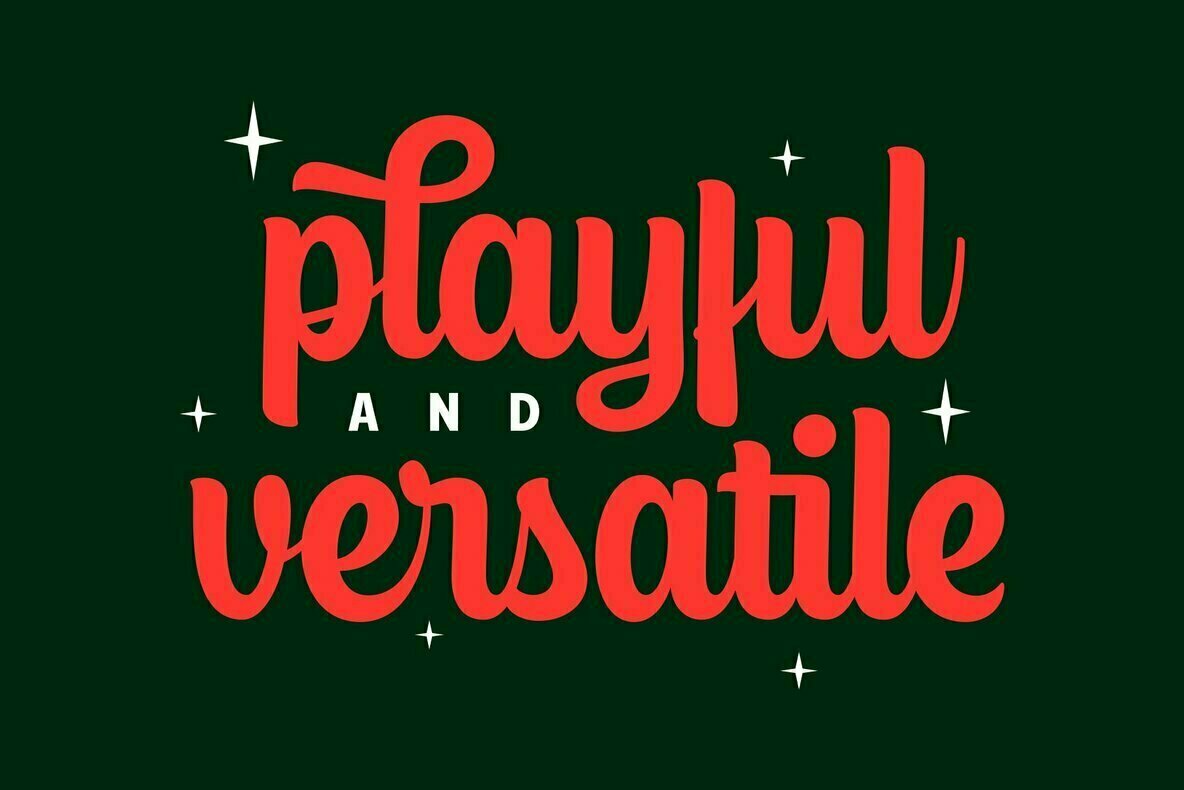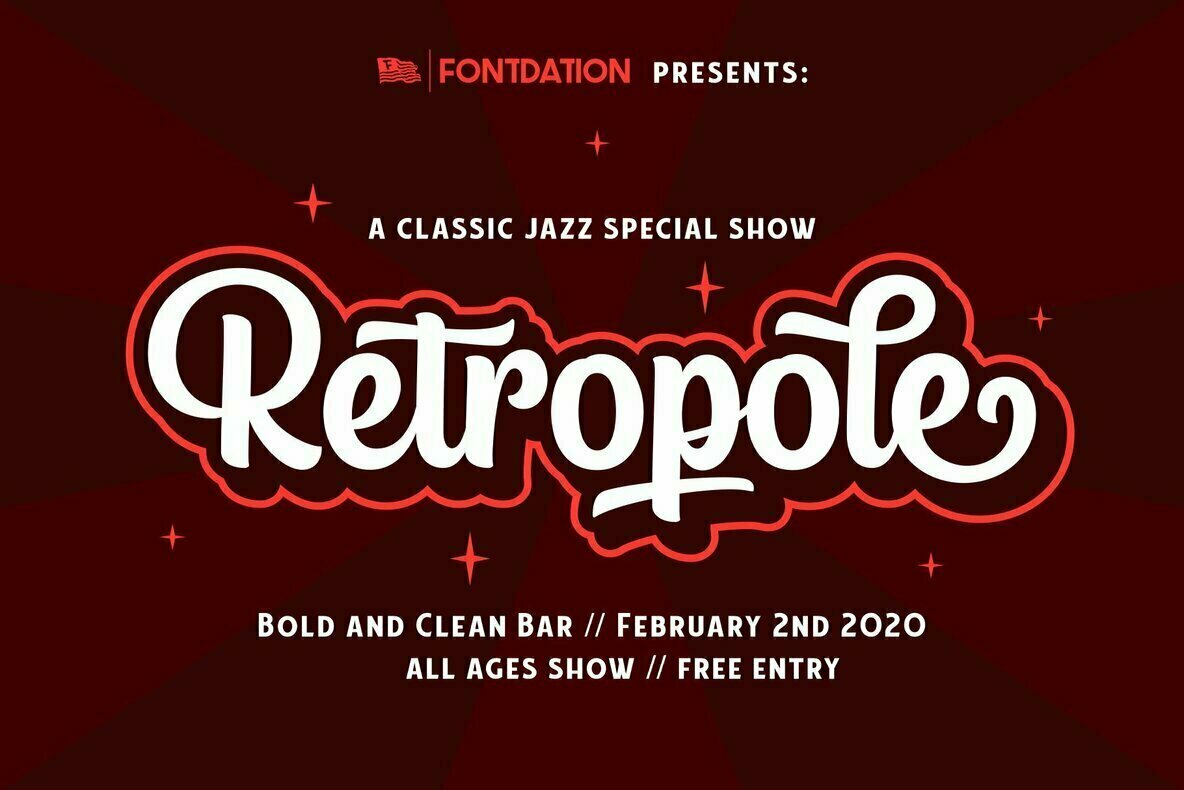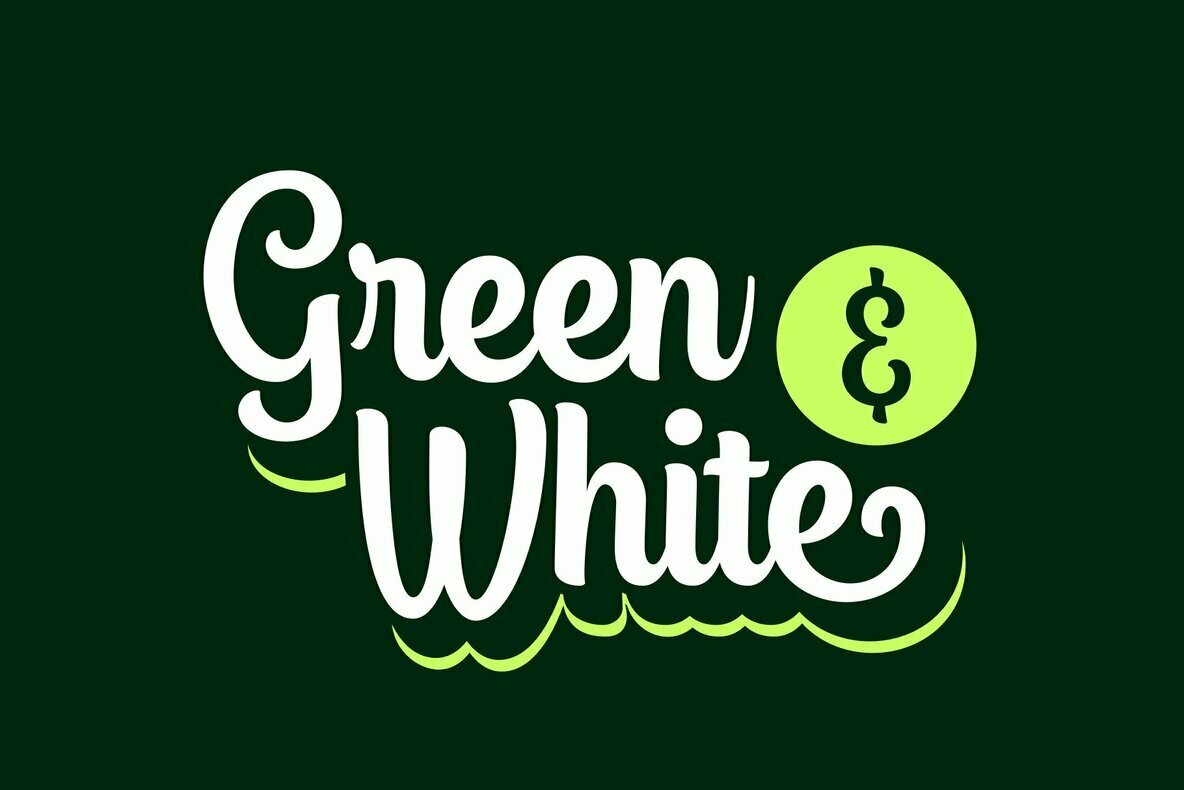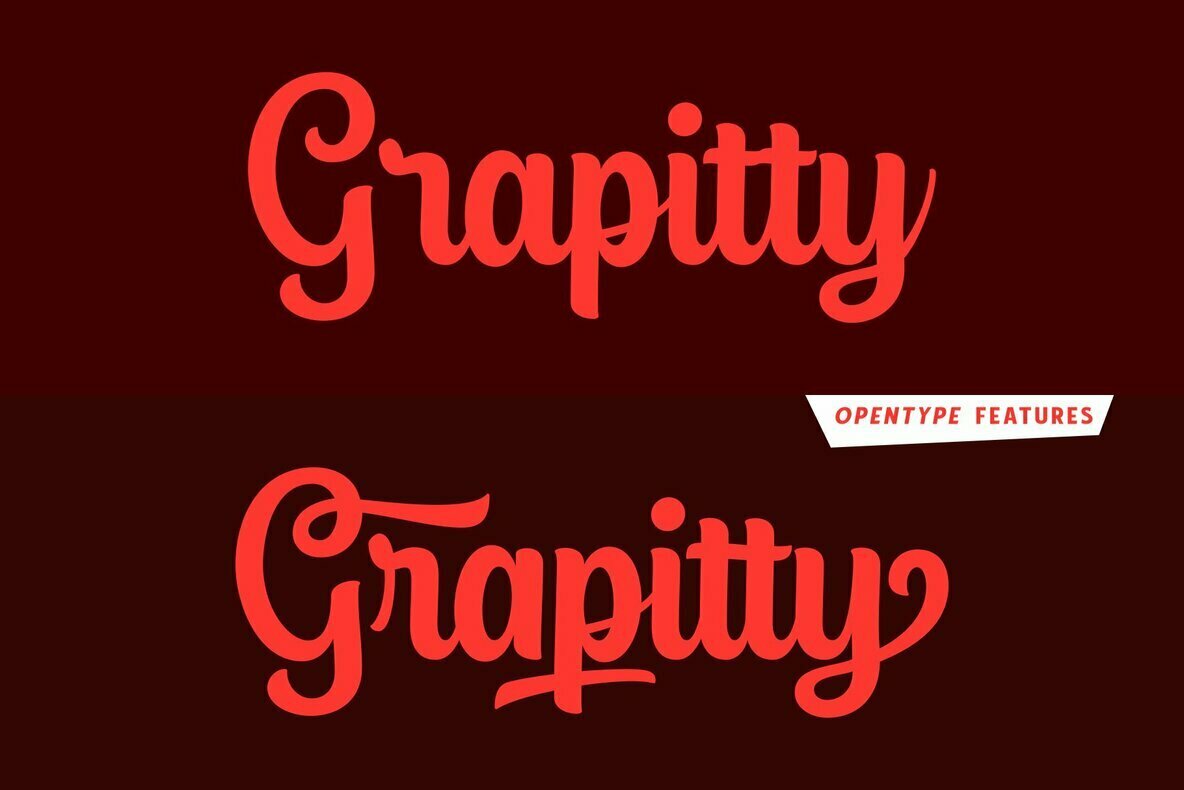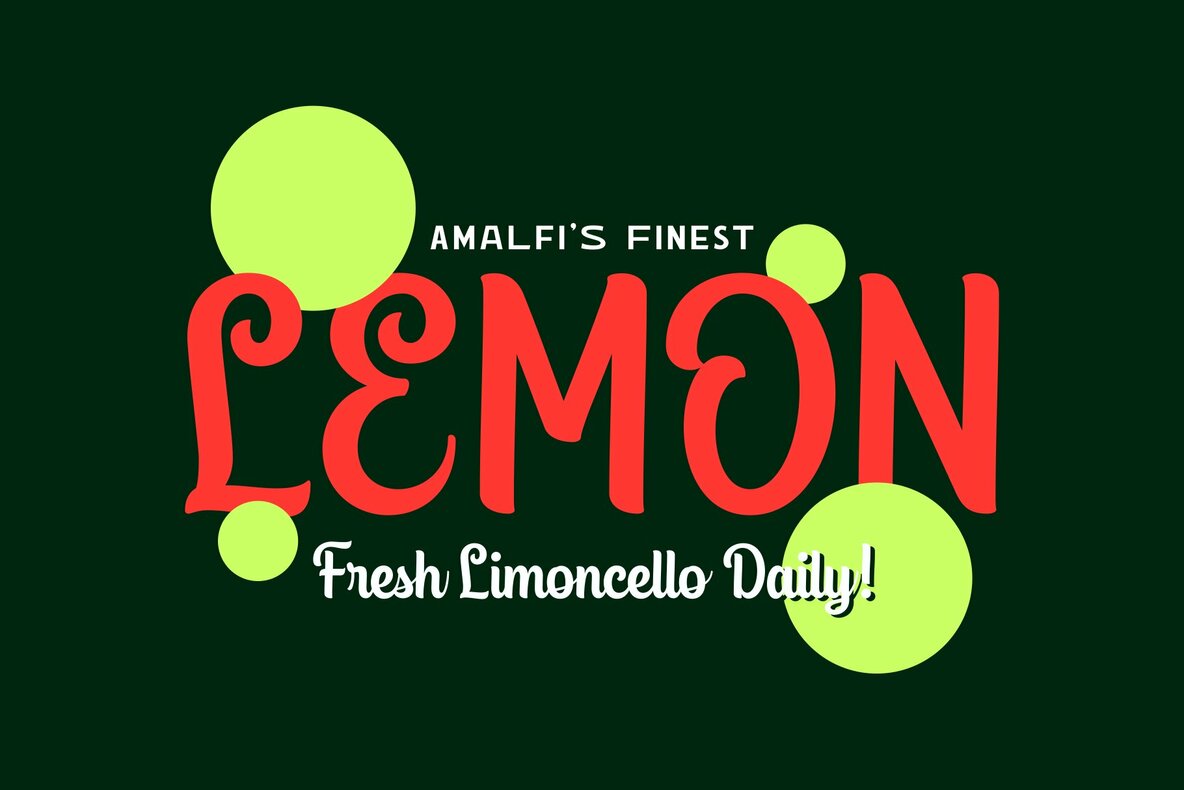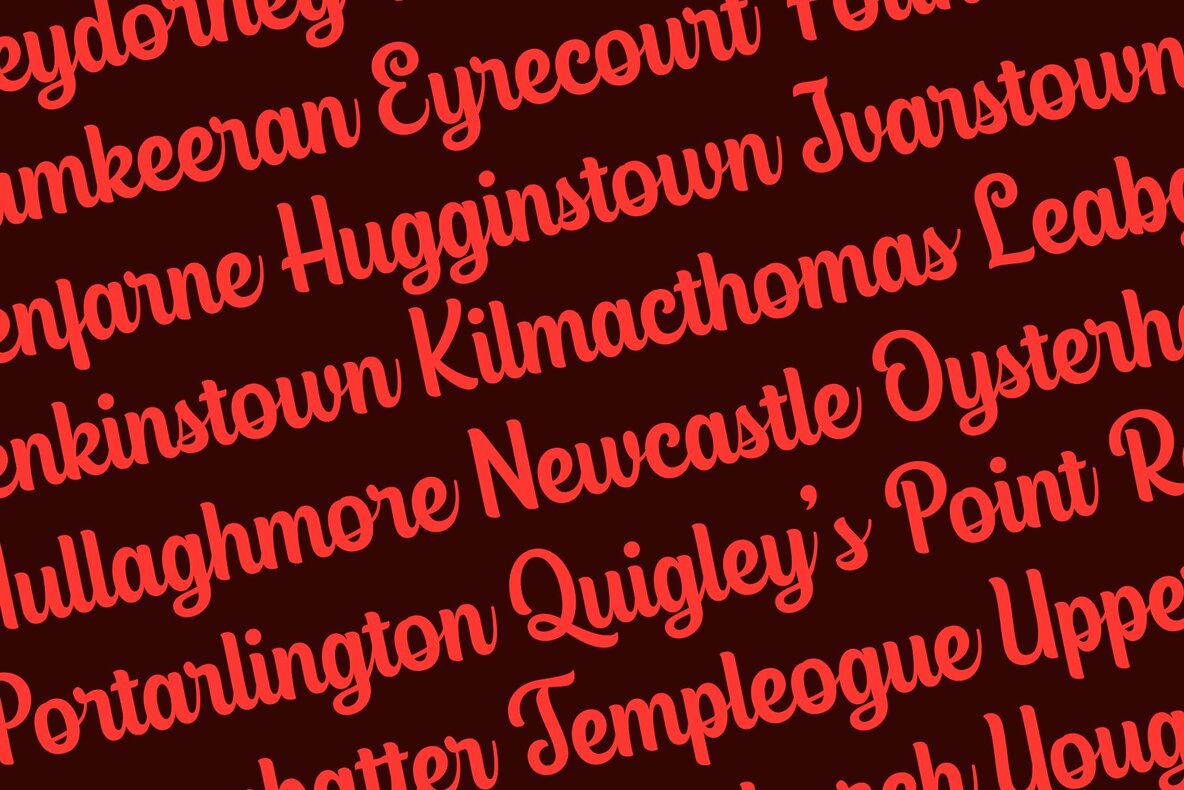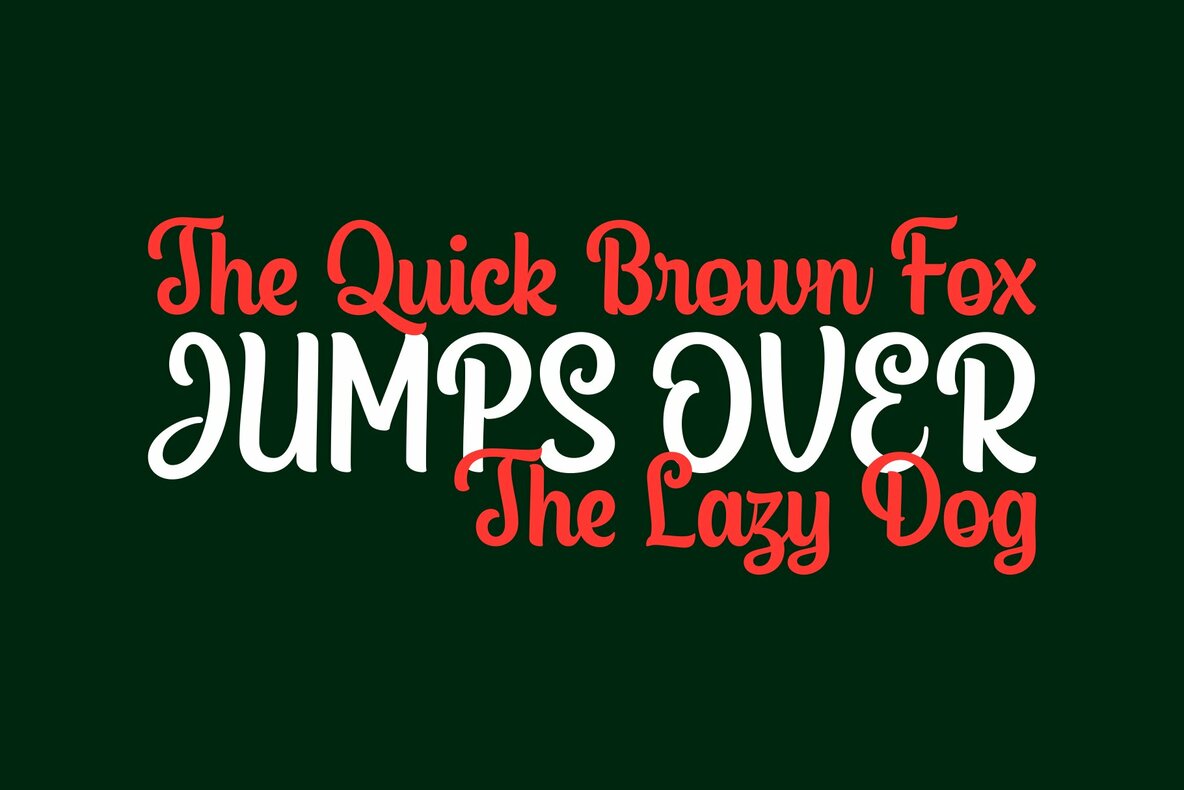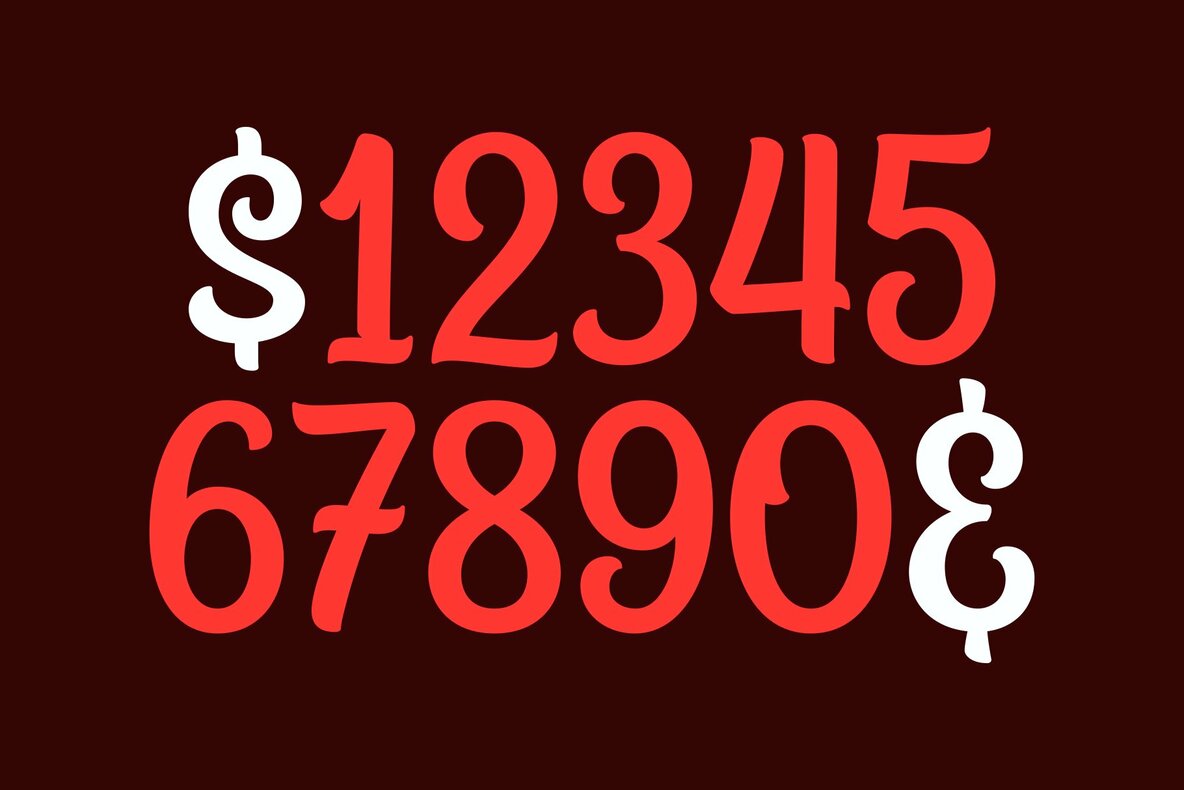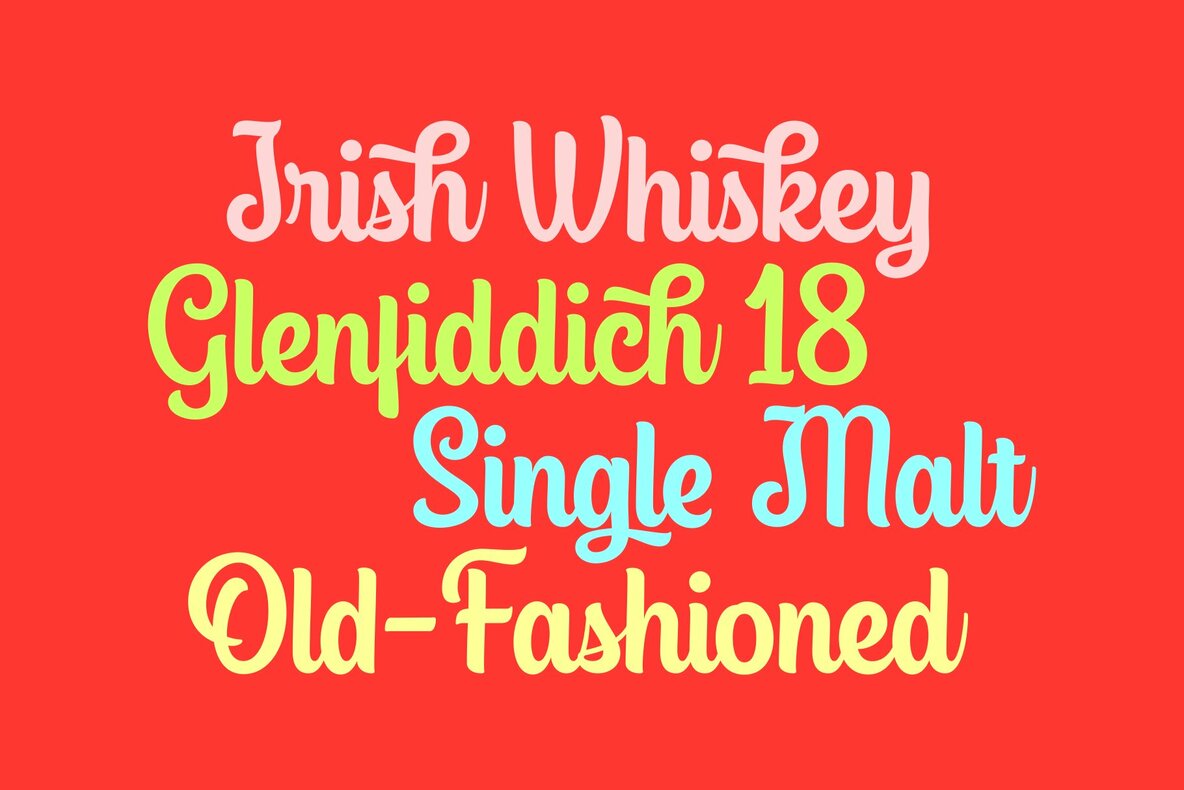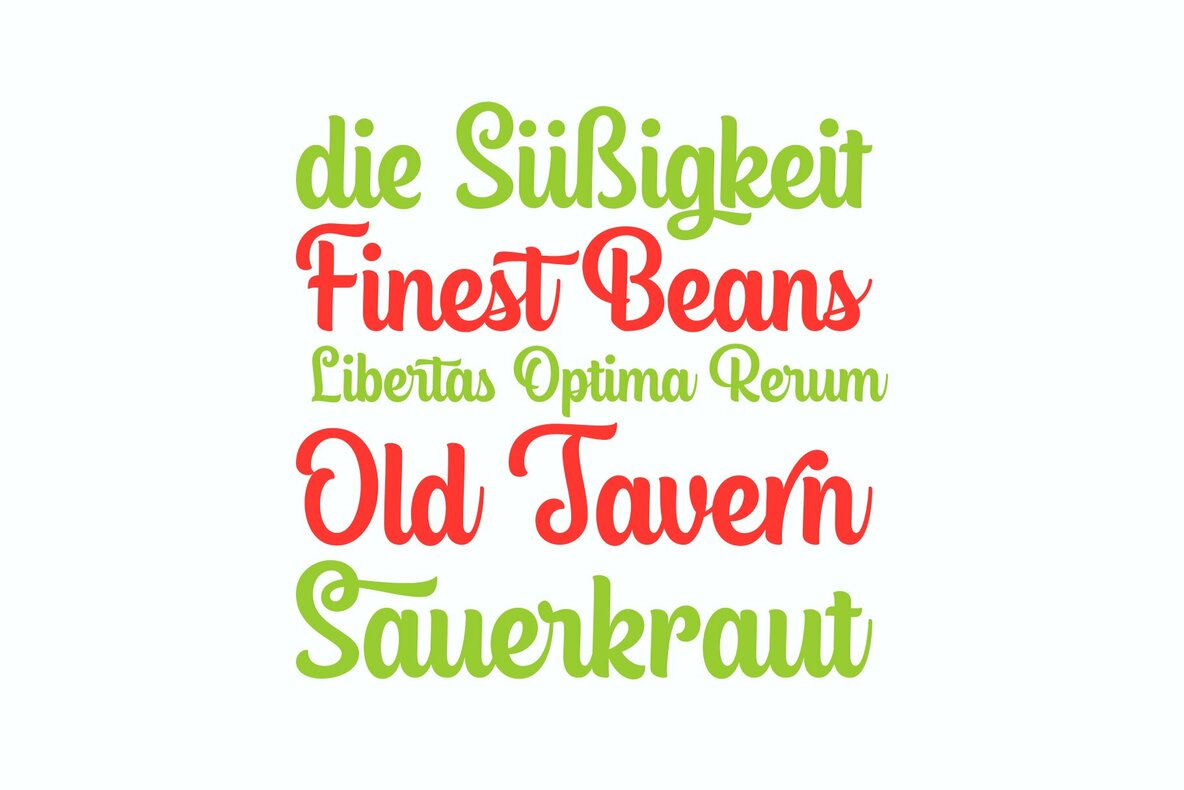
Glassgow Script Font
Glassgow Script
A straight forward and towering script that offers you natural hand-lettering experience. This bold and clean font was crafted digitally using basic shapes that often used in sign painting techniques. We're huge fans of clean lines and crisp edges (like you!), so we make sure the letterforms are well-shaped, and delivered perfectly to your screen. Glassgow Script suits best for logotype, poster/t-shirt designs, food/beverage labels, quote writings, greeting cards, wedding invitations, and many more.